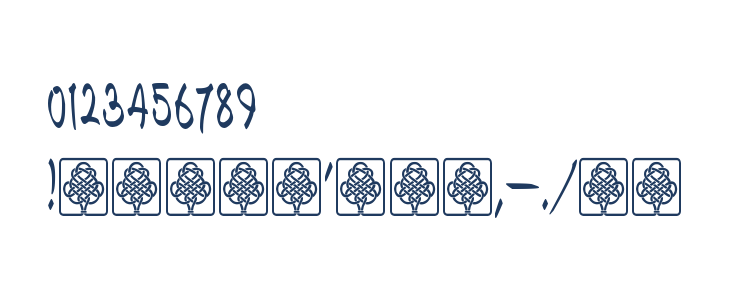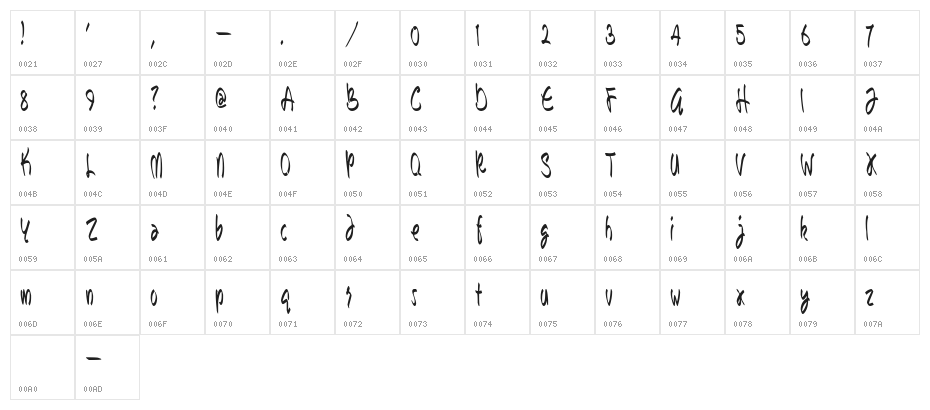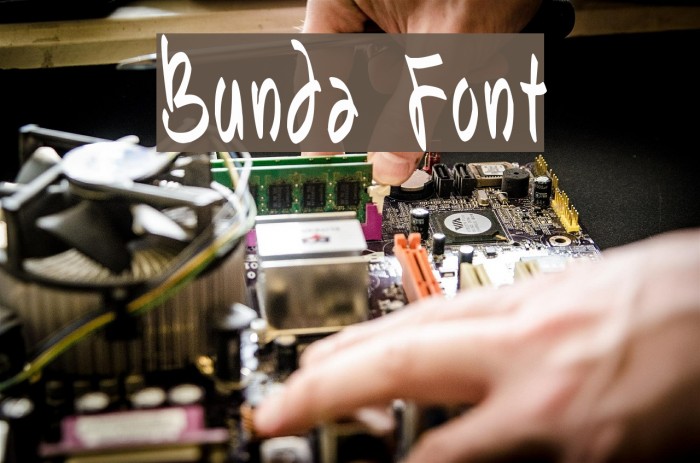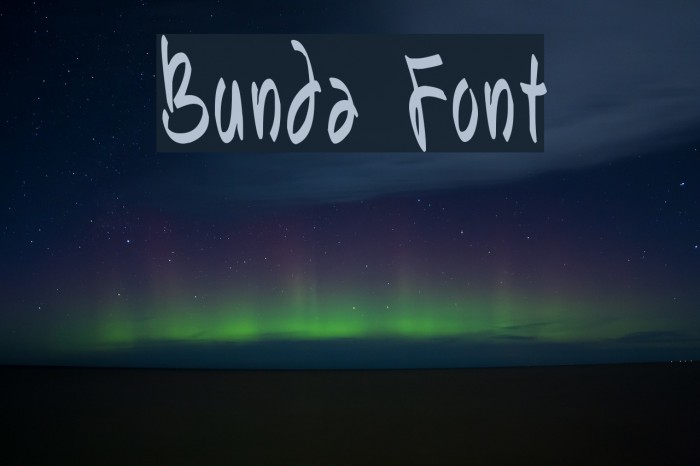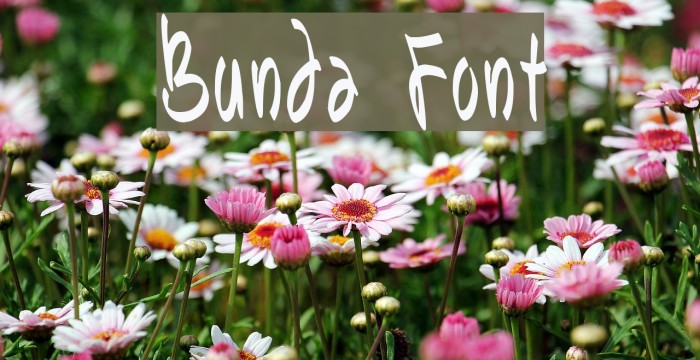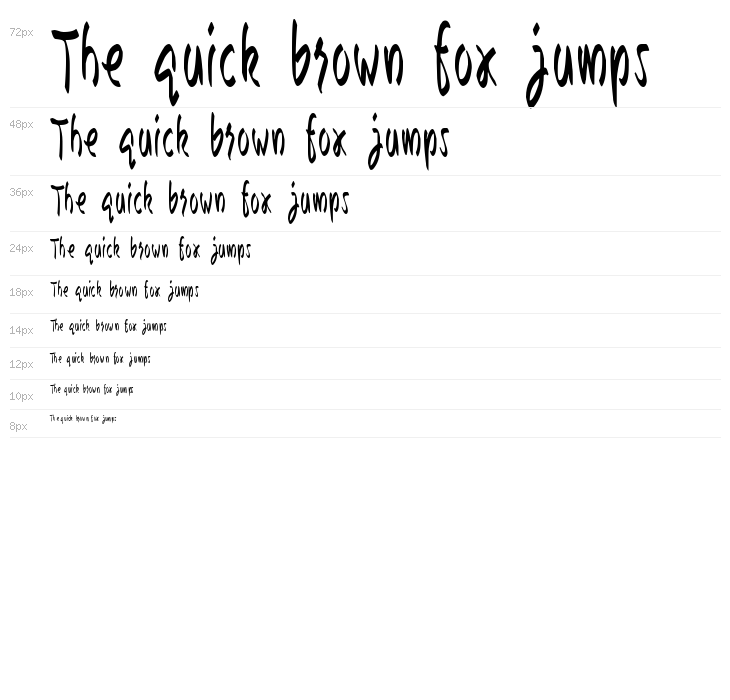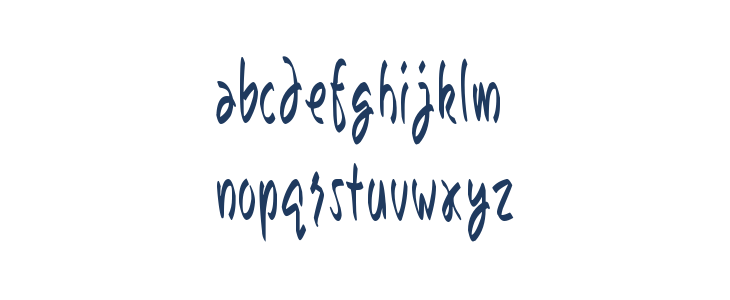
Bunda Font
Bunda Description
This font features a playful and dynamic handwritten style, characterized by its fluid and irregular strokes. The letters have a casual, informal appearance, with varying heights and widths that give it a lively and spontaneous feel. The uppercase letters are bold and prominent, while the lowercase letters maintain a consistent flow, enhancing readability. The numbers and special characters follow the same whimsical style, making the font versatile for creative projects. Its unique charm is perfect for designs that require a personal touch.
| Proposed Projects | Ideal for greeting cards, invitations, posters, and branding that seeks a personal, informal touch. |